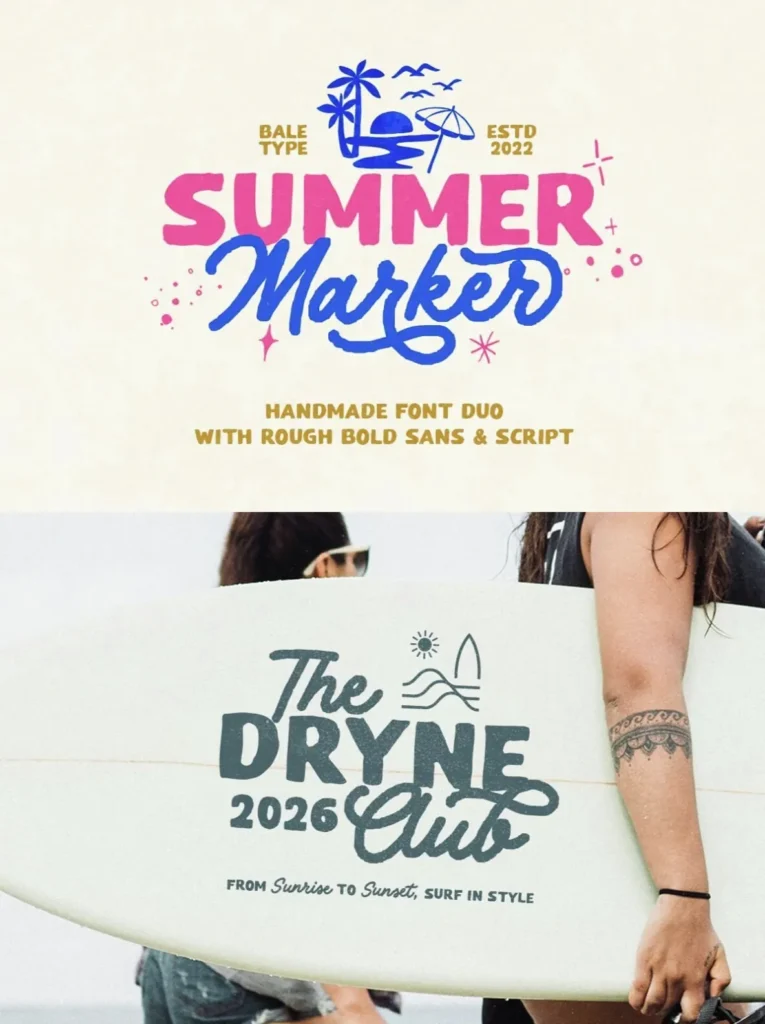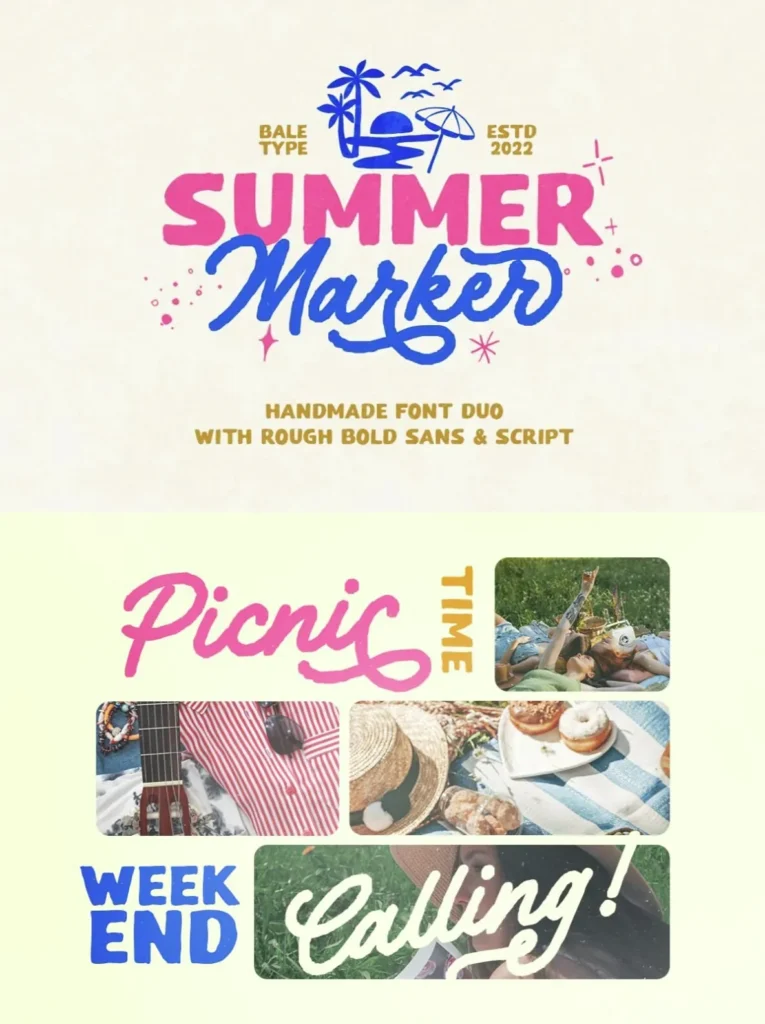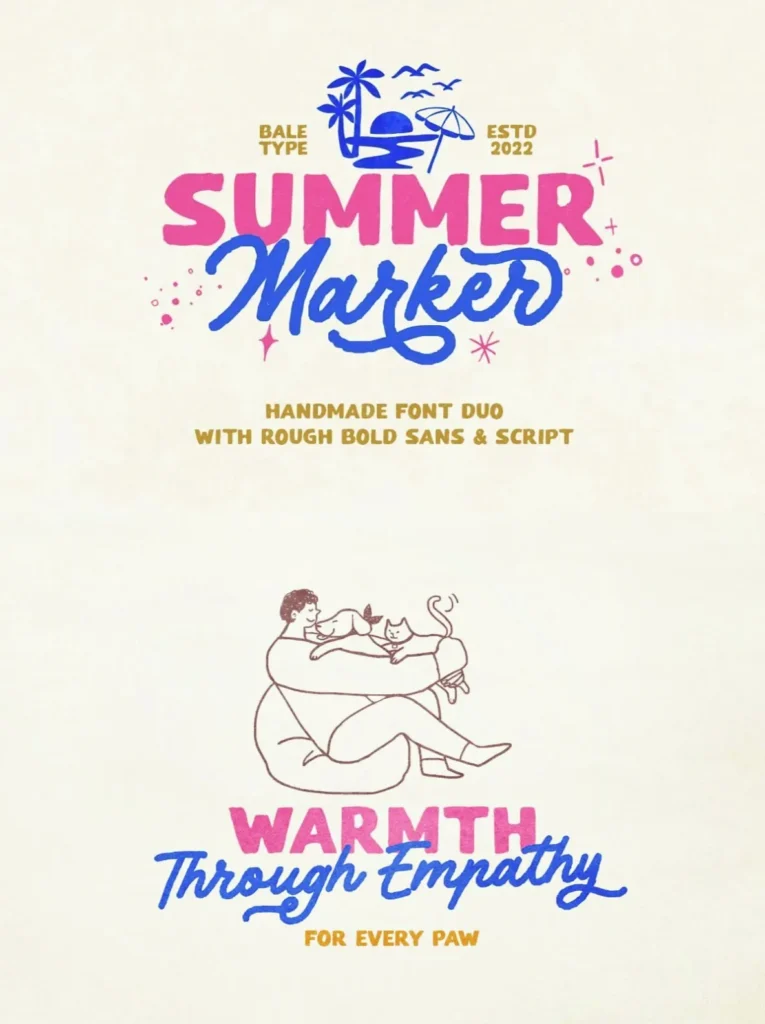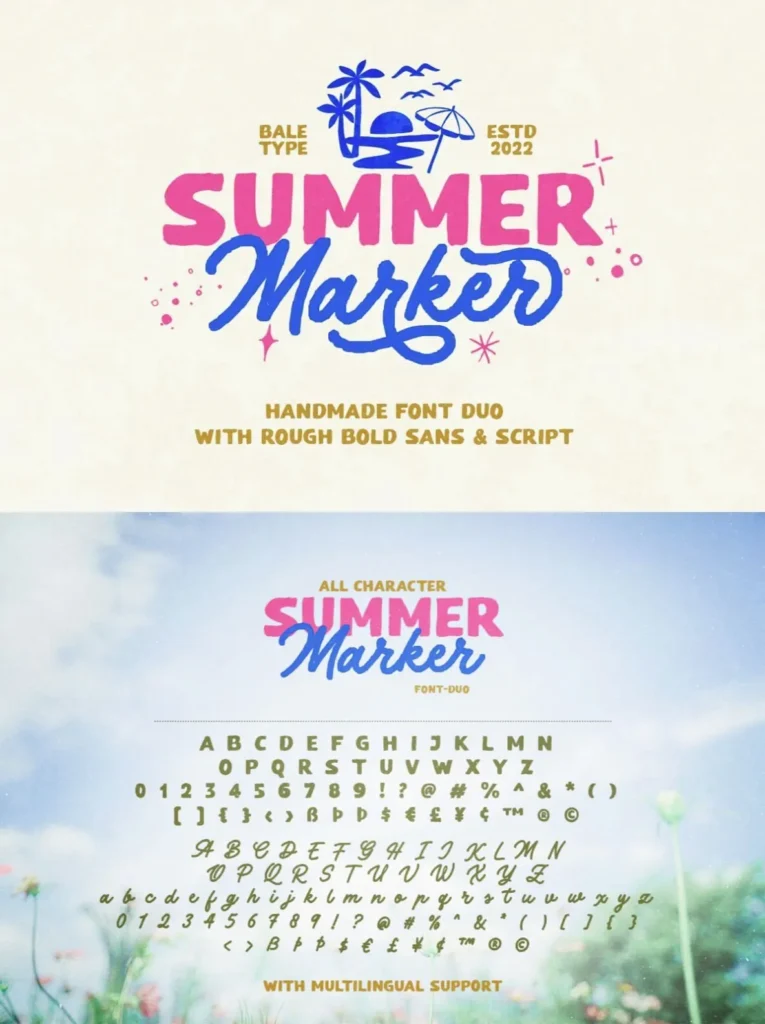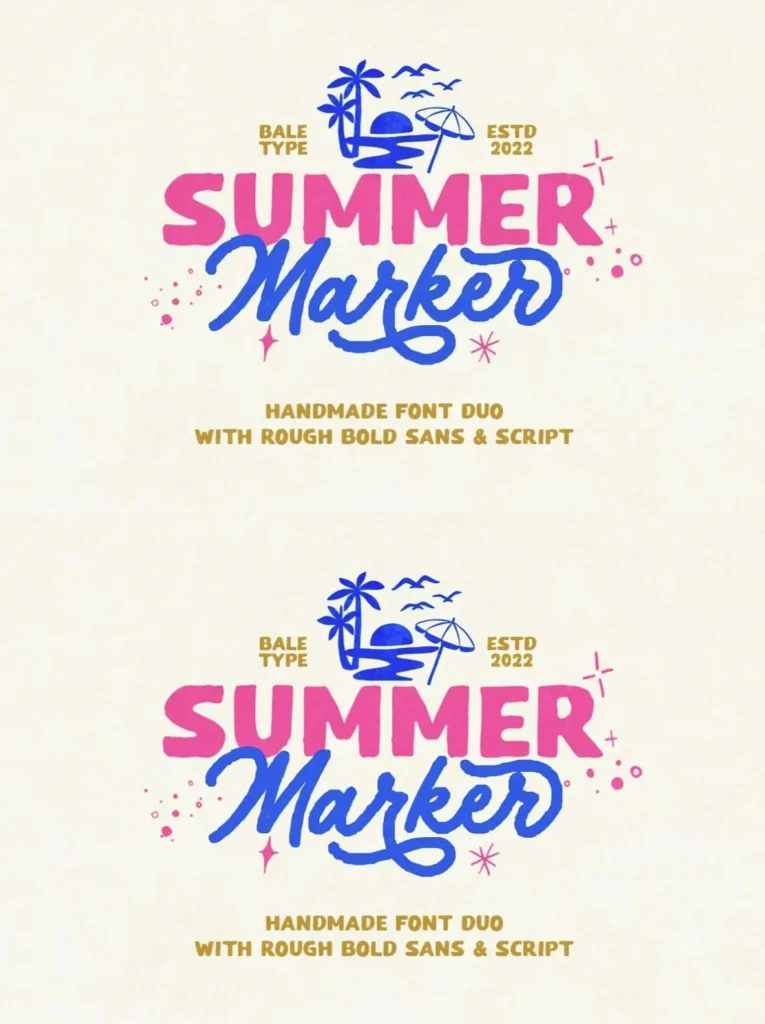
Summer Marker — Rough Retro Character
Summer Marker is a handmade font duo with a rough, organic look. It pairs a bold sans with a monoline script, giving designers two distinct styles for projects that need a hand-crafted feel.
Use Summer Marker for branding, logotypes, quotes, stickers, and designs that call for a retro look. The duo also supports multiple languages, making it a practical choice for expressive typography across a wide range of visual work.